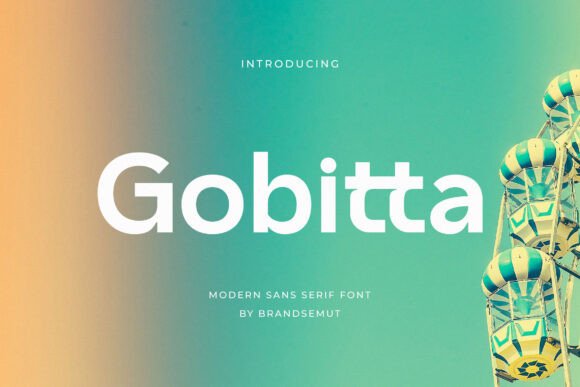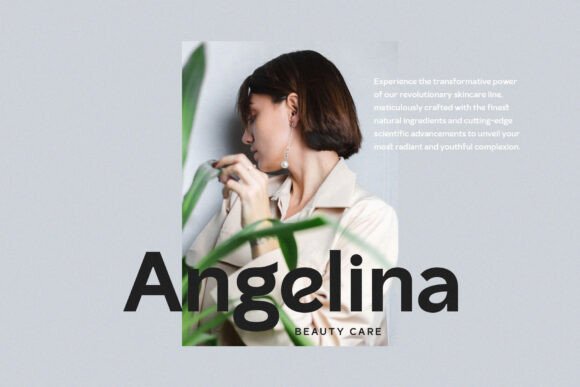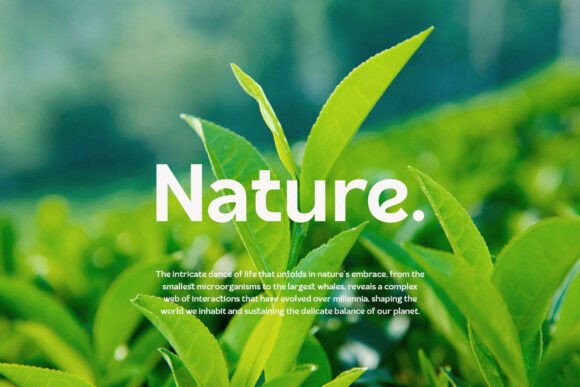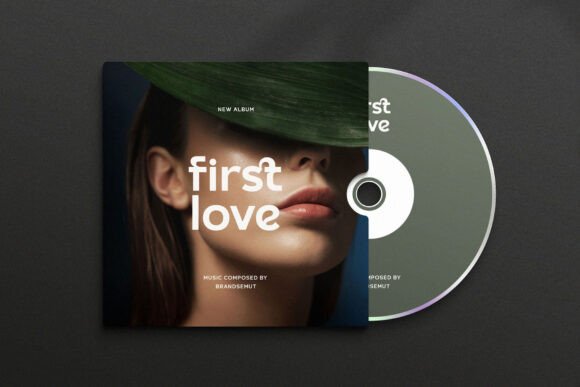
Gobitta Font: Modern Sans Serif for Elegant Logo Design & Branding
About the Gobitta Font
Experience the unique personality of Gobitta Font, a font designed for impact. Introducing Gobitta Modern Sans Serif.
Gobitta is a modern and classy typeface, best used as a display for headings, logos, branding, magazines, product packaging and invitations. Gobitta comes with clean lines and smooth curves, giving any project an extra touch of class.
Gobitta’s elegant yet modern feel makes it ideal for branding projects requiring a sophisticated touch, particularly logos and short headlines. It also excels in packaging design and high-end print collateral such as brochures and invitations, where its clean lines command attention without overwhelming the design. However, its limited x-height makes it less suitable for extended body text or UI elements where readability is paramount.
Pairing Gobitta effectively requires considering its inherent elegance. A classic serif like Garamond or a geometric sans-serif such as Futura would create a balanced and refined aesthetic. For a more contemporary feel, pairing with a neutral sans-serif like Open Sans could work well, letting Gobitta’s curves stand out while maintaining visual cohesion.
Gobitta projects an overall feeling of sophisticated modernity. Brands focusing on luxury goods, high-end services, or those aiming for a timeless yet contemporary image would find it particularly fitting.
Gobitta Font Usage Examples
Gobitta Font Example